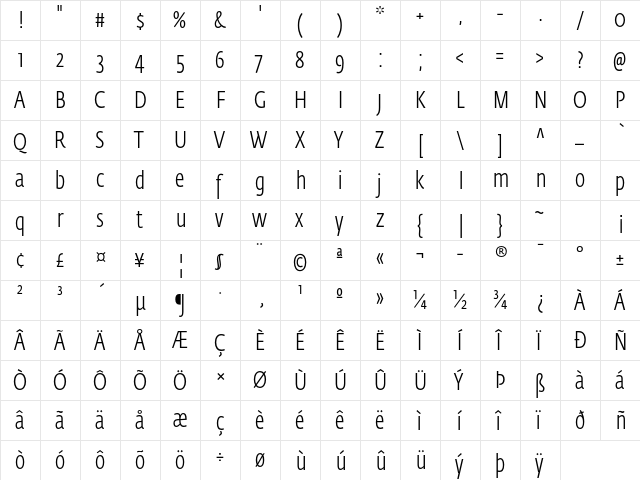
Fedra Sans Condensed Std Light Font Preview
| Foundry | Typotheque type foundry |
| Designer | Peter Bilak https://www.typotheque.com) |
Design Context for Fedra Sans Condensed Std Typeface
Fedra Sans Condensed Std offers clean, dependable letterforms without strong stylistic allegiance, making it a practical choice for designers who need flexibility. The delicate stroke weight brings airiness and refinement to layouts. The condensed width makes it efficient for tight spaces without sacrificing legibility.